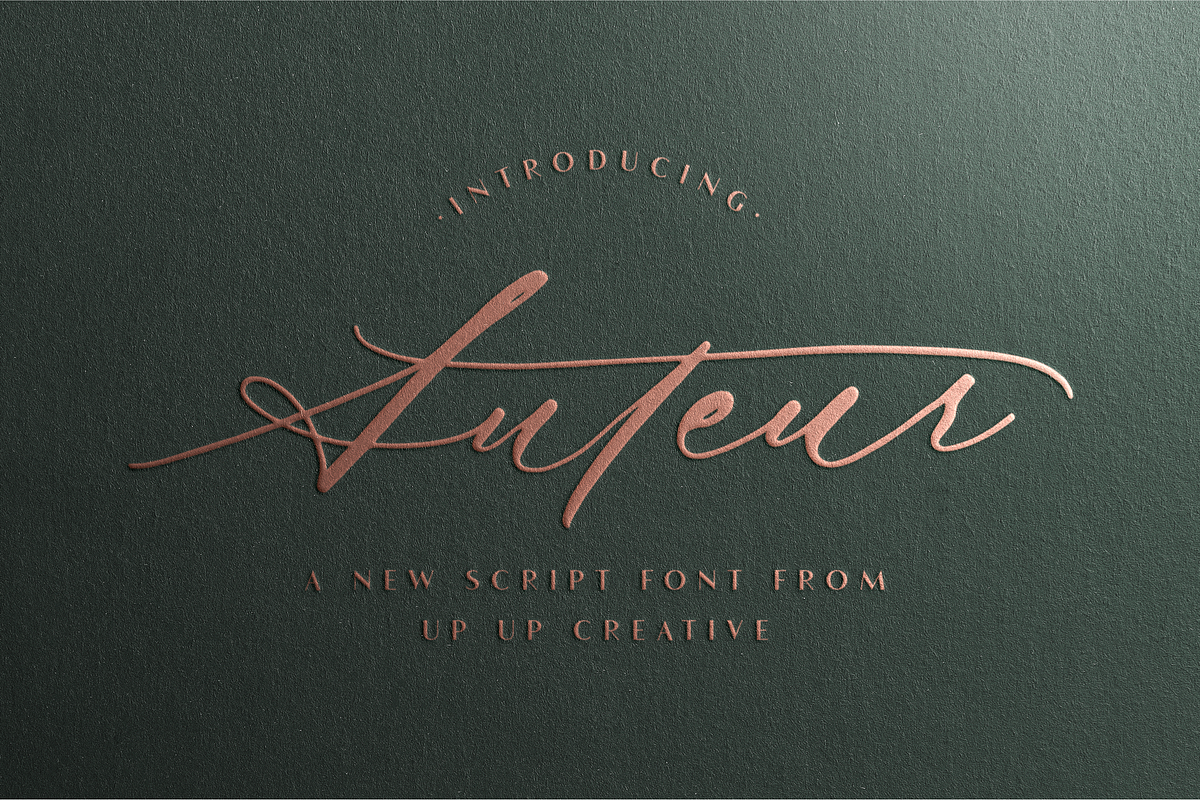
Auteur Calligraphy Script Font Free Download is an elegant and sophisticated script typeface that exudes a sense of refinement and artistry. With its smooth, flowing lines and delicate curves, this font is perfect for high-end branding, invitations, wedding stationery, logos, and any project that requires a touch of class and personal flair.
Auteur combines the beauty of traditional calligraphy with a modern twist, making it a versatile choice for both luxurious and contemporary design. Whether you're creating elegant invitations, fashion campaigns, or luxury product packaging, this font adds a timeless, handcrafted touch to your work.
The font includes uppercase and lowercase letters, numerals, punctuation, and multilingual support. It’s designed for versatility and is suitable for both digital and print projects.